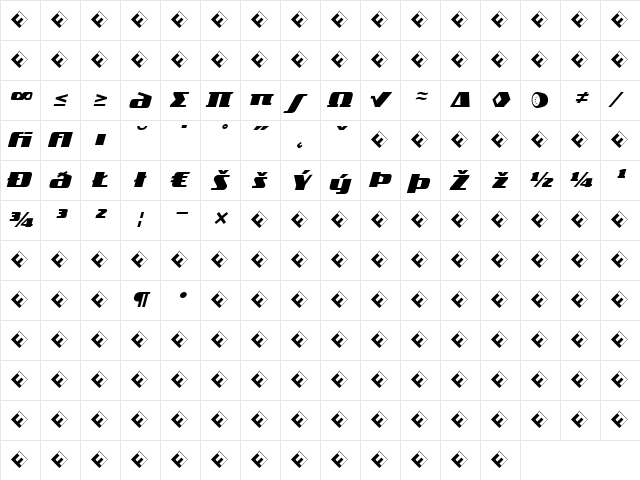
TradeMarker Fat Italic
Design Context for TradeMarker Typeface
TradeMarker offers clean, dependable letterforms without strong stylistic allegiance, making it a practical choice for designers who need flexibility. The slanted form adds forward momentum and visual energy.
Pro Tip: Try TradeMarker for annotation and caption copy alongside an upright companion — the contrast in angle creates a dynamic but ordered typographic system.